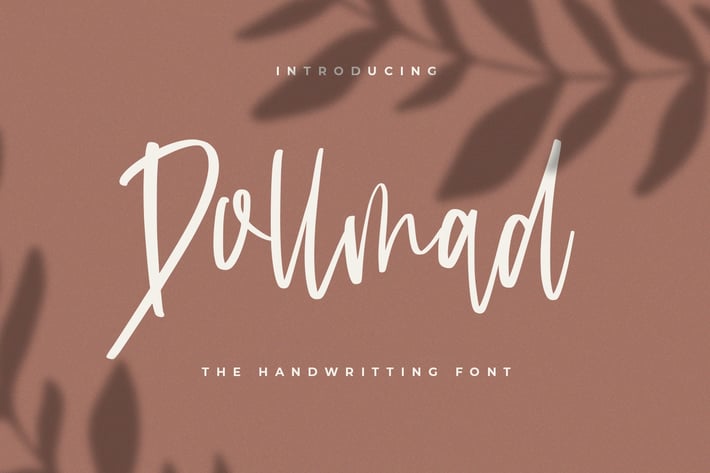
Dollmad - The Handwritten Font
Dollmad - The Handwritten Font, every single letter has been carefully crafted to make your text looks beautiful. it's perfect for logos, name card, magazine layouts, invitations, headers, or even large-scale artwork.
- Dollmad font including upper & lowercase characters, numerals and more of symbols.
- Support International Character set with some ligature